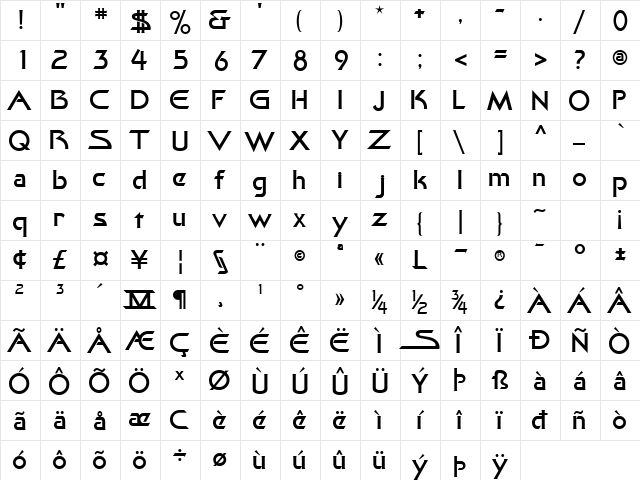
Khan Regular Font Preview
Khan Regular
Design Context for Khan Typeface
Khan offers clean, dependable letterforms without strong stylistic allegiance, making it a practical choice for designers who need flexibility.